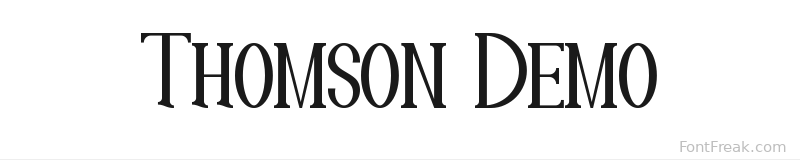
Thomson Demo
About Thomson Demo
The Thomson Demo font by Noah Type is a striking display typeface that captures attention with its elegant and sophisticated design. This serif font features a unique combination of bold stroke weights and refined contrast, making it both legible and aesthetically pleasing. The sharp, angular serifs add a touch of modernity while maintaining a classic appeal, making the font suitable for a variety of applications. The spacing is thoughtfully balanced, ensuring that each character stands out while contributing to an overall harmonious look.
This versatile font is perfect for a range of creative projects. Its standout characteristics make it an ideal choice for wedding invitations, where elegance is key. Additionally, it can elevate the design of movie posters, providing a dramatic flair that draws the eye. Restaurant menus can also benefit from the Thomson Demo font, adding a touch of sophistication to the dining experience. For graphic designers and content creators, this font serves as an excellent choice for branding materials, helping to convey a polished image for small businesses.
The target audience for the Thomson Demo font includes graphic designers, small business owners, and content creators who seek to enhance their projects with a distinctive typographic style. Its freeware license makes it accessible to those who may be working within budget constraints while still wanting to produce high-quality designs.
What sets the Thomson Demo font apart is its ability to blend traditional serif characteristics with a contemporary twist. This balance allows it to stand out in a crowded marketplace, making it a valuable addition to any designer's toolkit. For those looking to explore its full potential, the Thomson Demo font free download is a fantastic opportunity to integrate this captivating typeface into your next project.